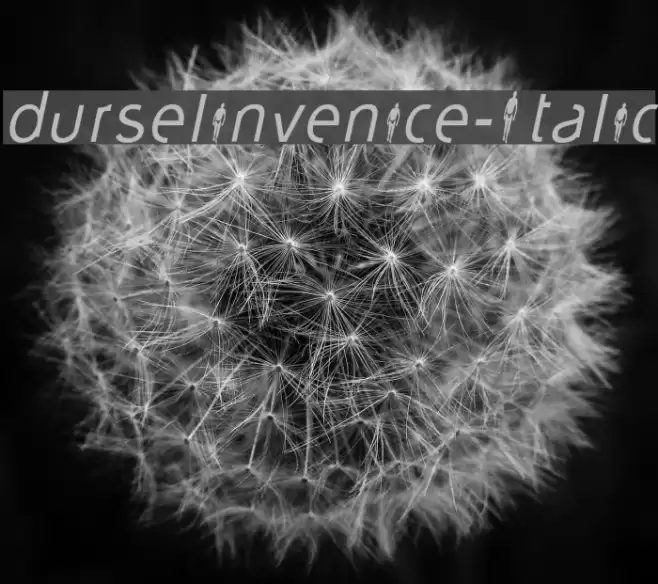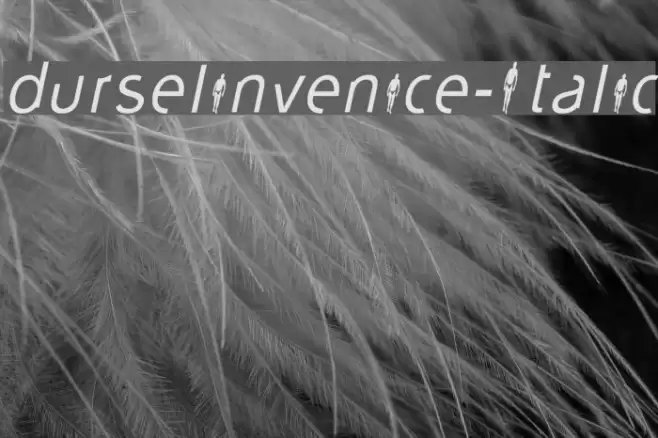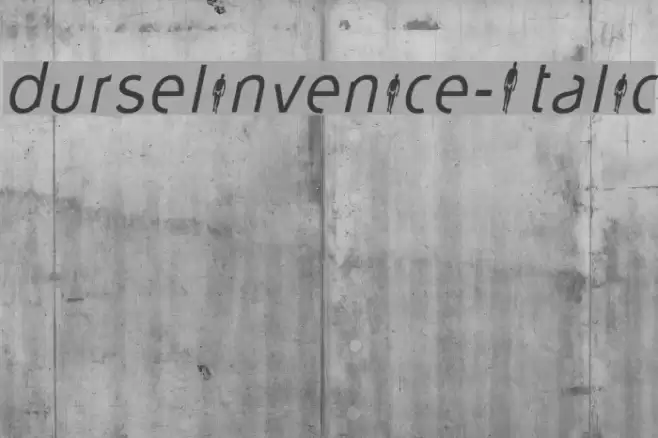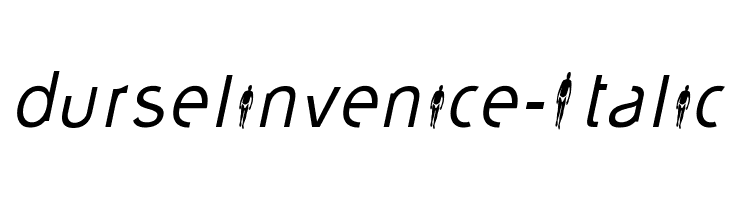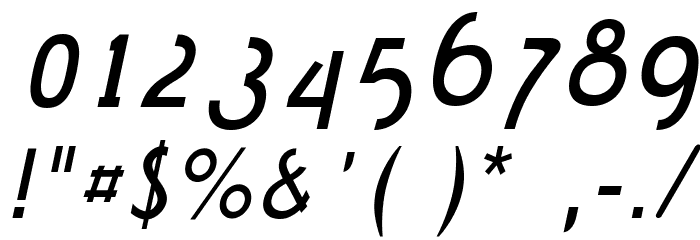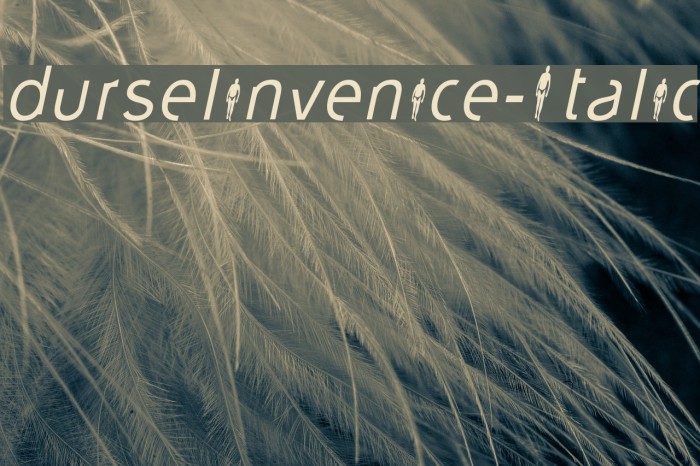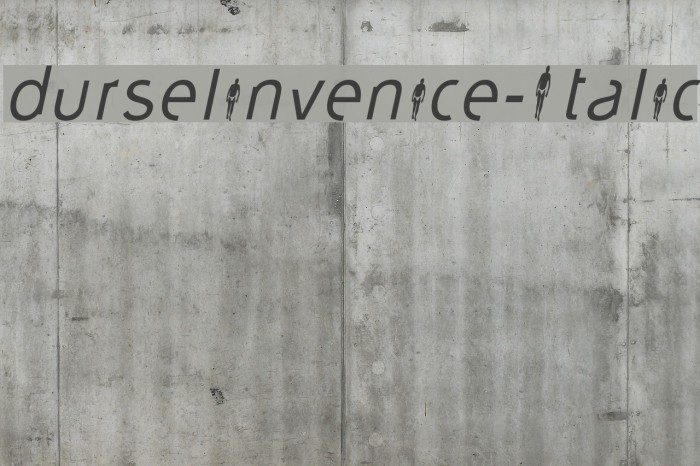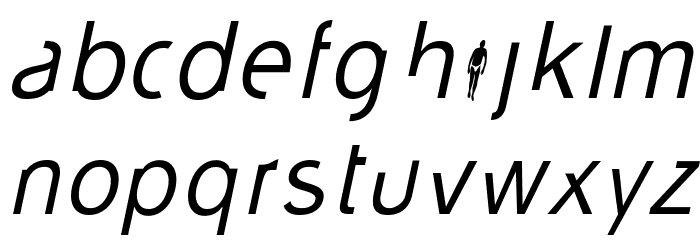
durselinvenice-Italic Font
durselinvenice-Italic Description
This font presents a sleek and modern italic style, characterized by its clean lines and slightly slanted orientation. The uppercase and lowercase letters maintain a consistent flow, with a unique feature of a silhouette embedded within the 'H' and 'h' characters, adding a distinctive artistic touch. The numerals are clear and well-proportioned, ensuring readability. Special characters are elegantly integrated, maintaining the font's overall aesthetic. The design is both functional and visually appealing, making it suitable for a variety of creative applications.
A modern italic font with clean lines and unique silhouette details from Sans Serif fonts.
by nicolasmartin - Weight: Italic
- Proposed Projects: Ideal for branding, editorial design, and creative projects that require a modern and artistic touch.
- Use Case: Headlines, Logos, Creative projects